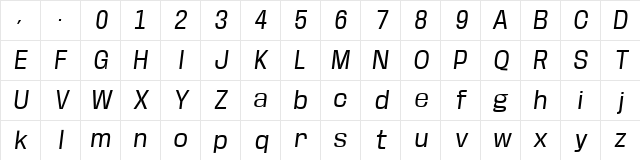
Base Neue Obl Italic Free Font
Base Neue Obl Italic
Foundry: Power Type Foundry
Designer: Teguh Arief
Design Context for Base Neue Obl
Base Neue Obl is a composed and adaptable typeface that performs quietly and consistently across a wide range of design contexts. The slanted form adds forward momentum and visual energy.
Pro Tip: Use Base Neue Obl for emphasis, pull quotes, and subheadings where its slanted energy can add rhythm to the layout.